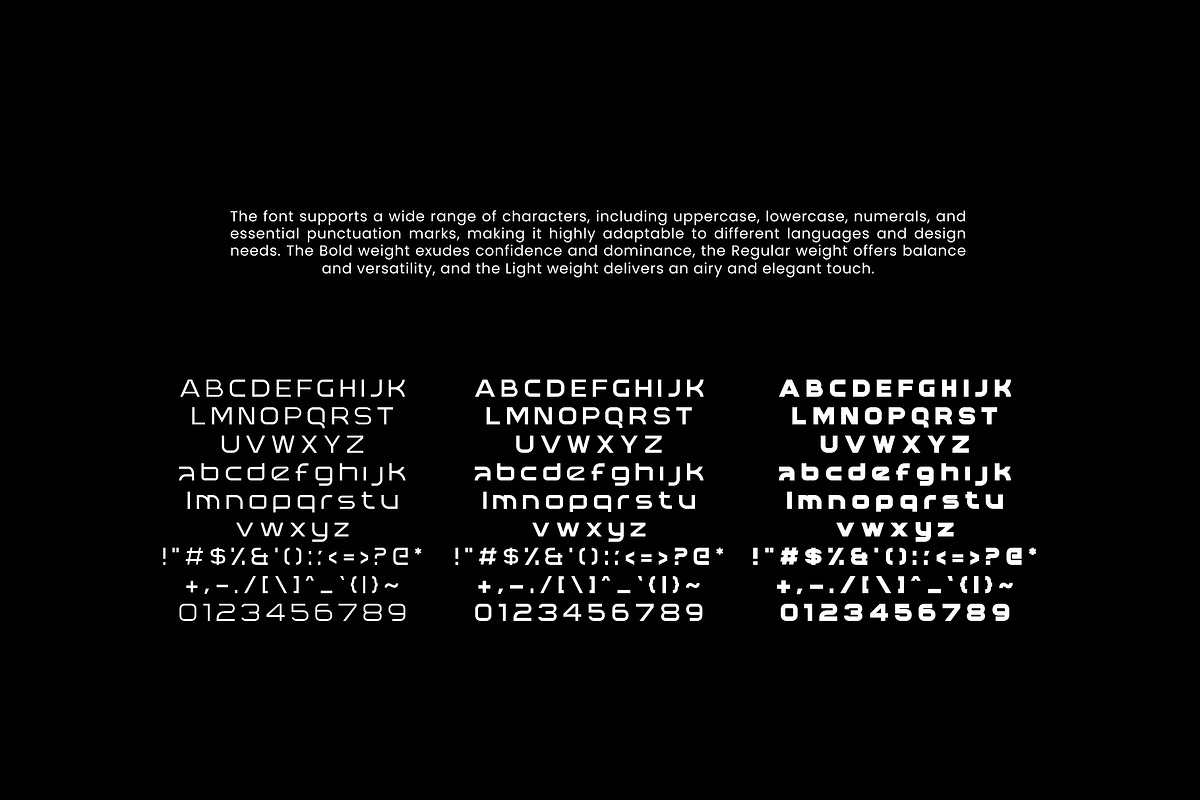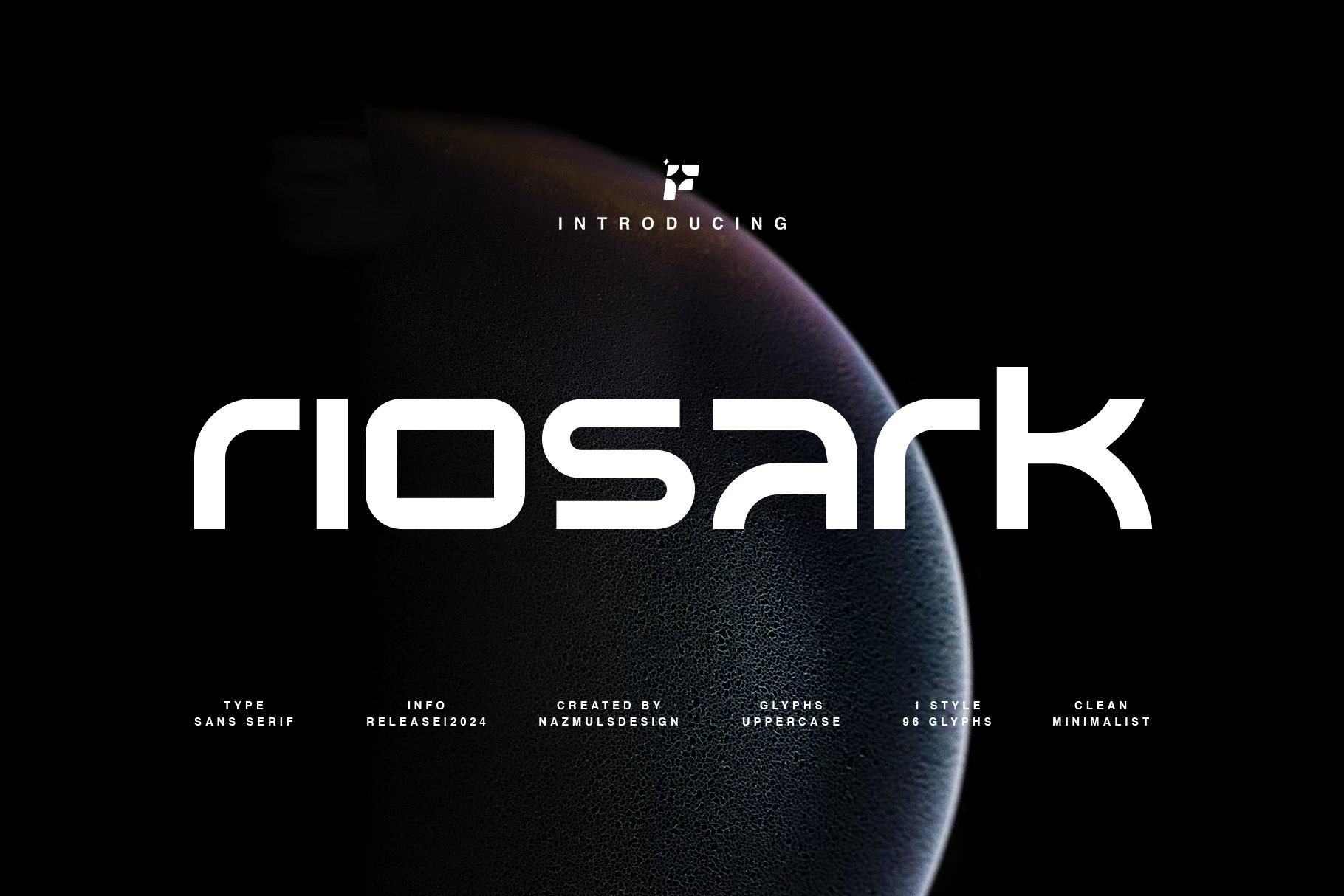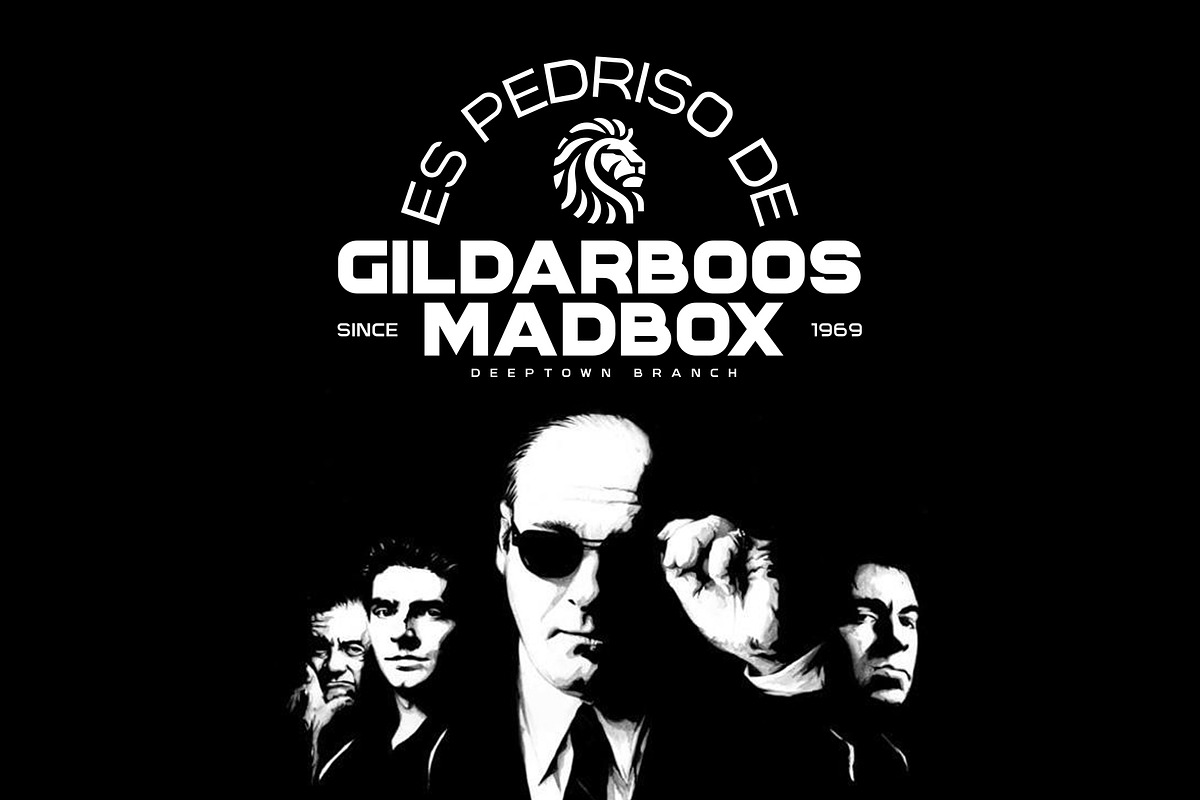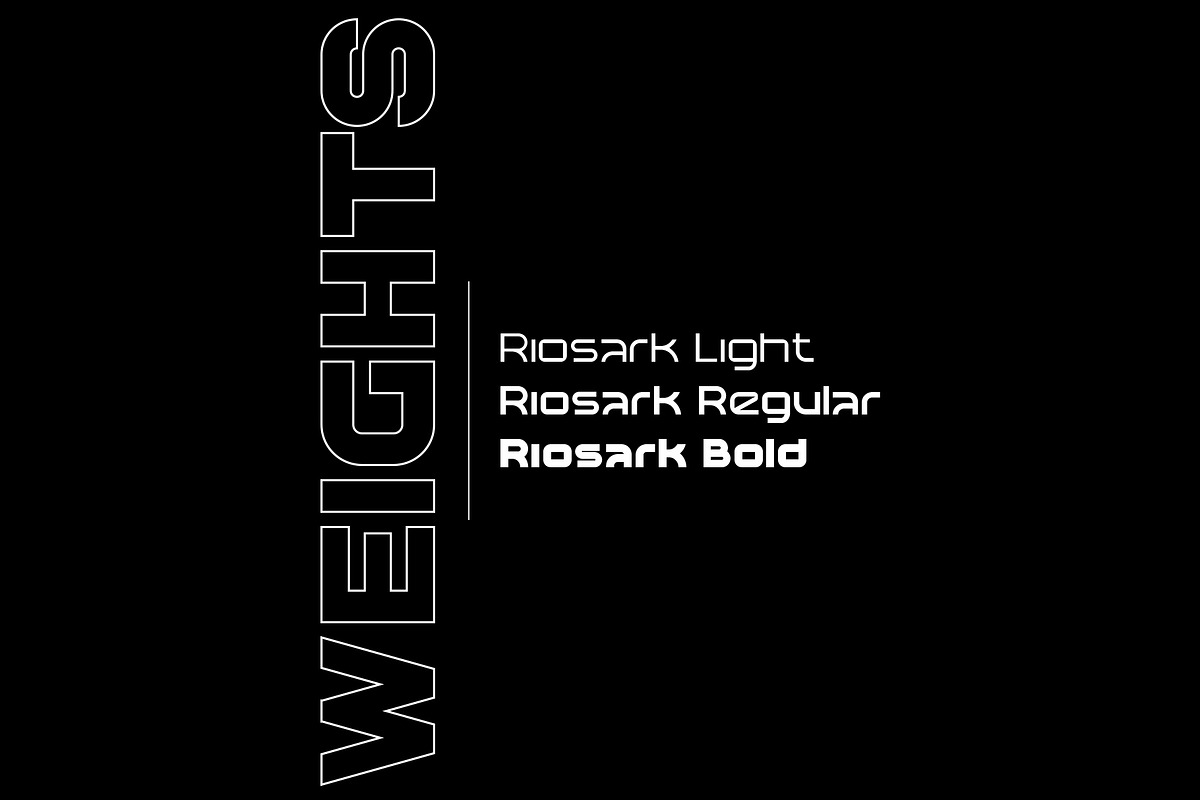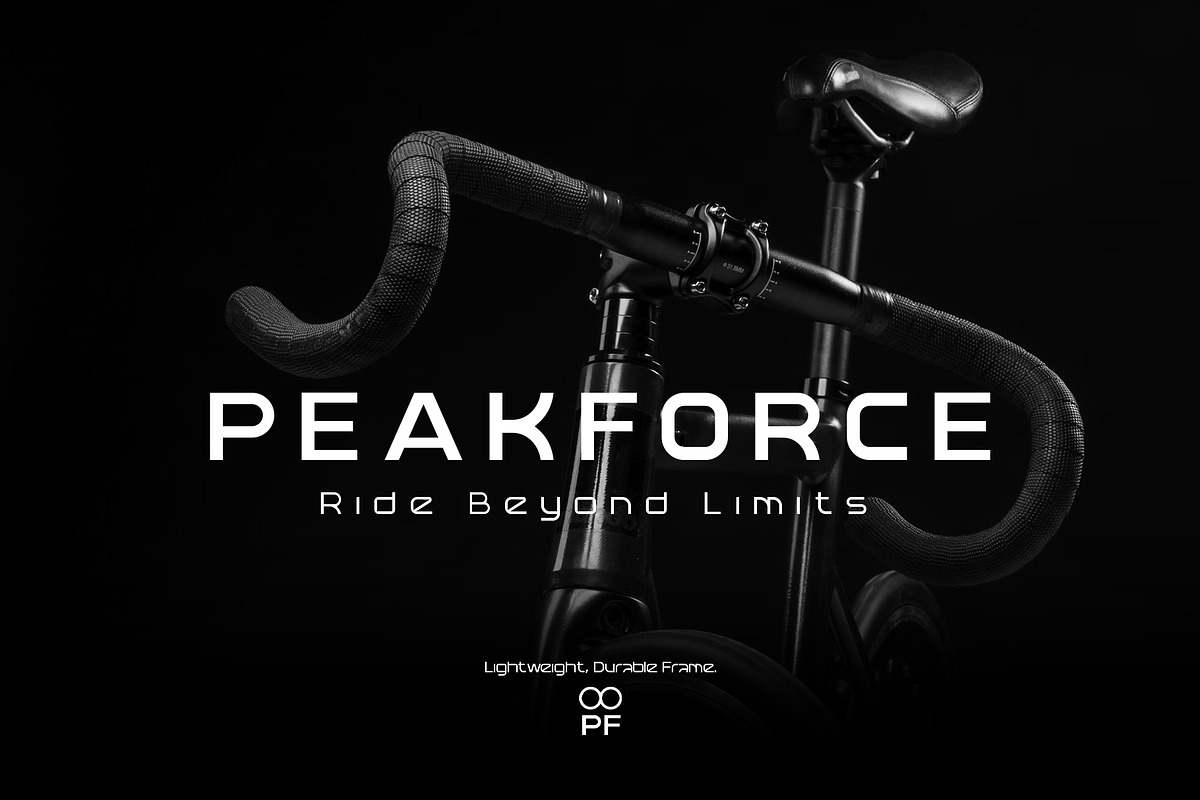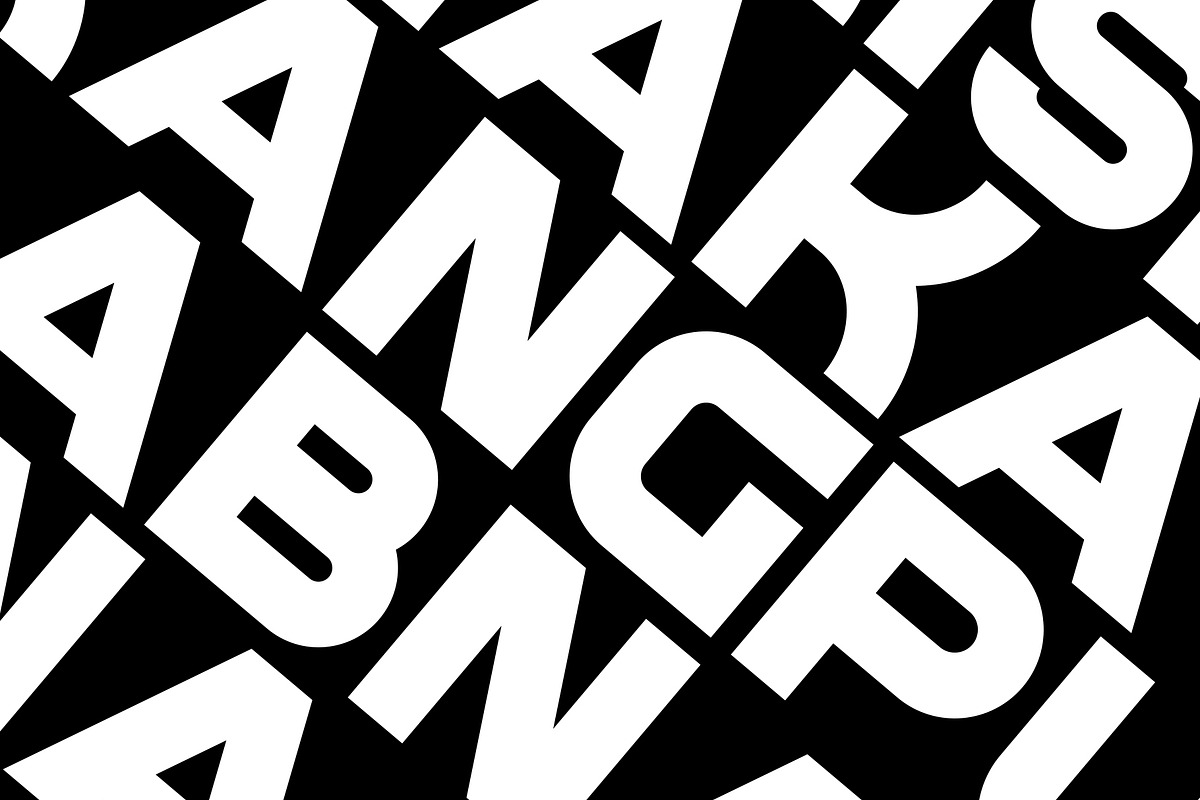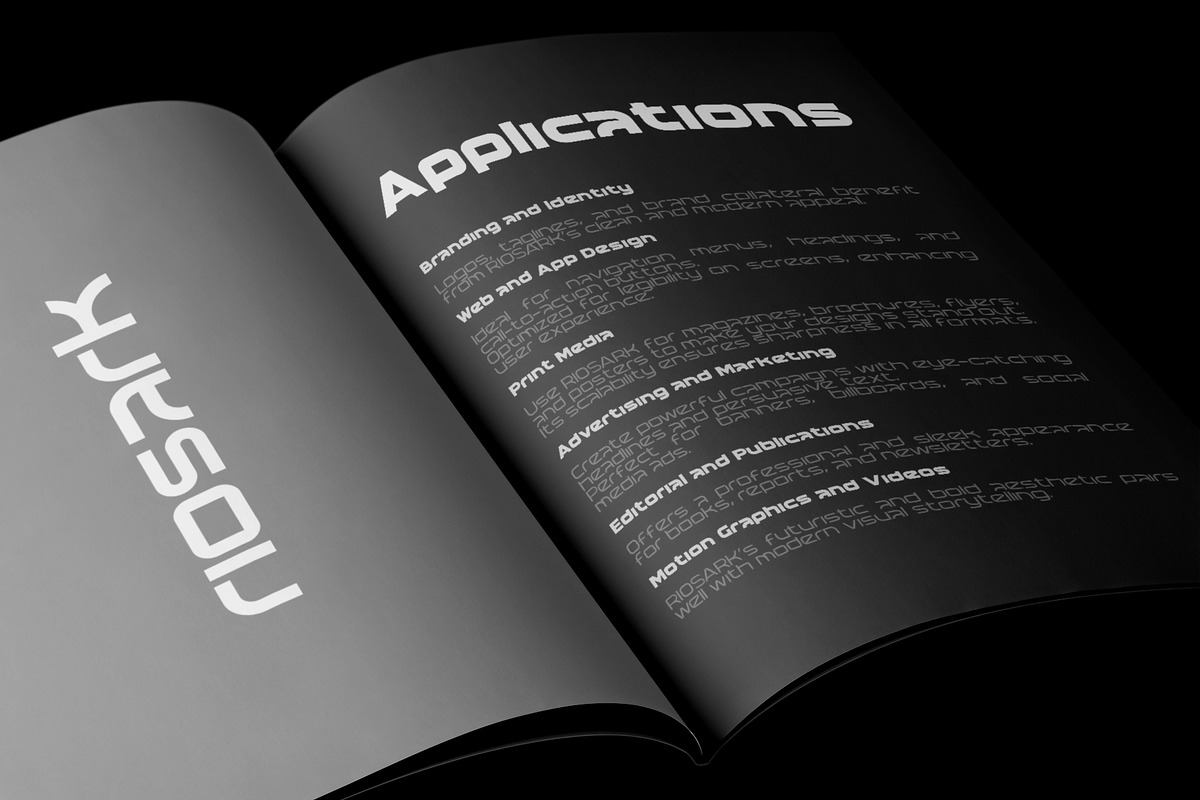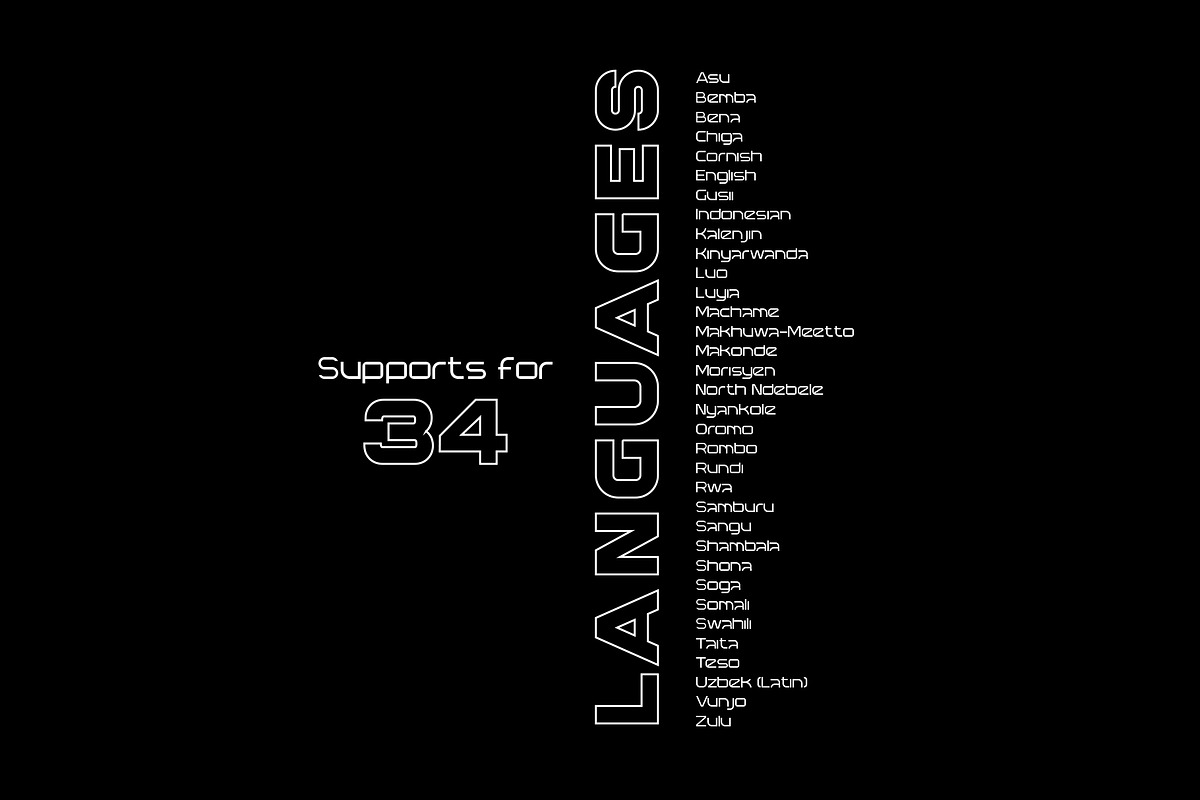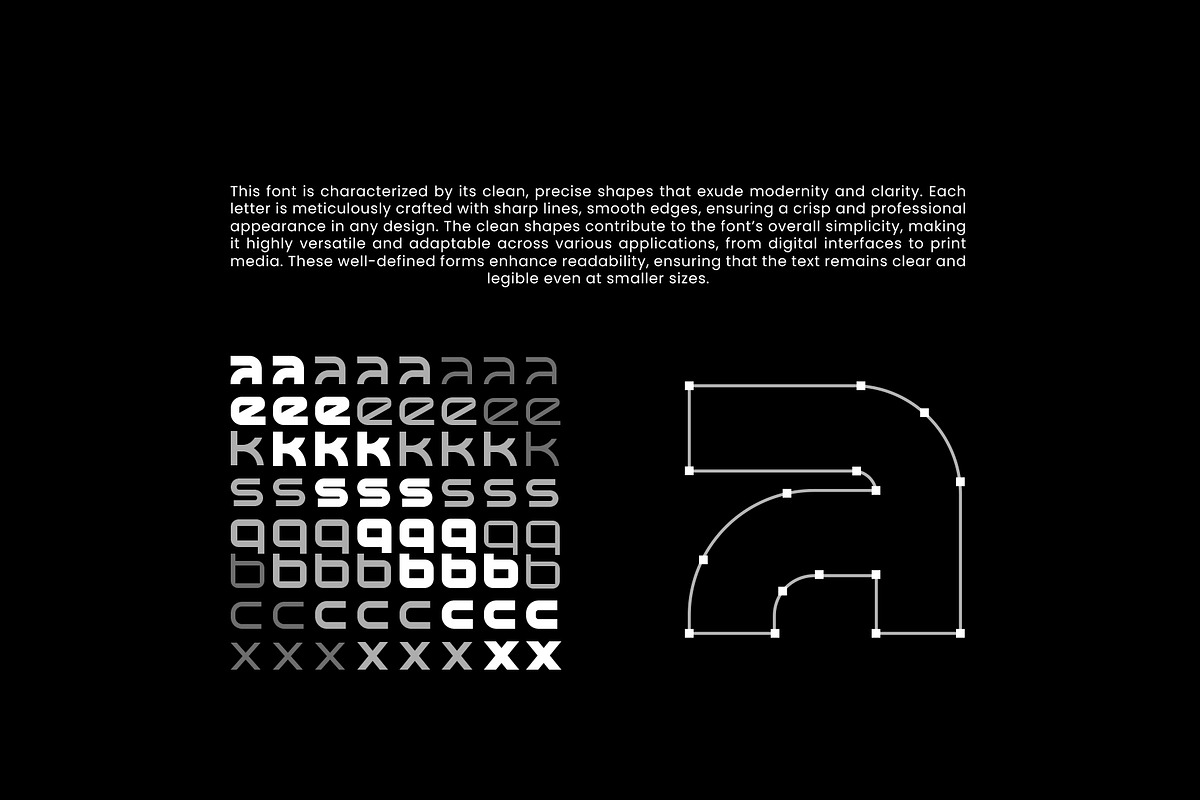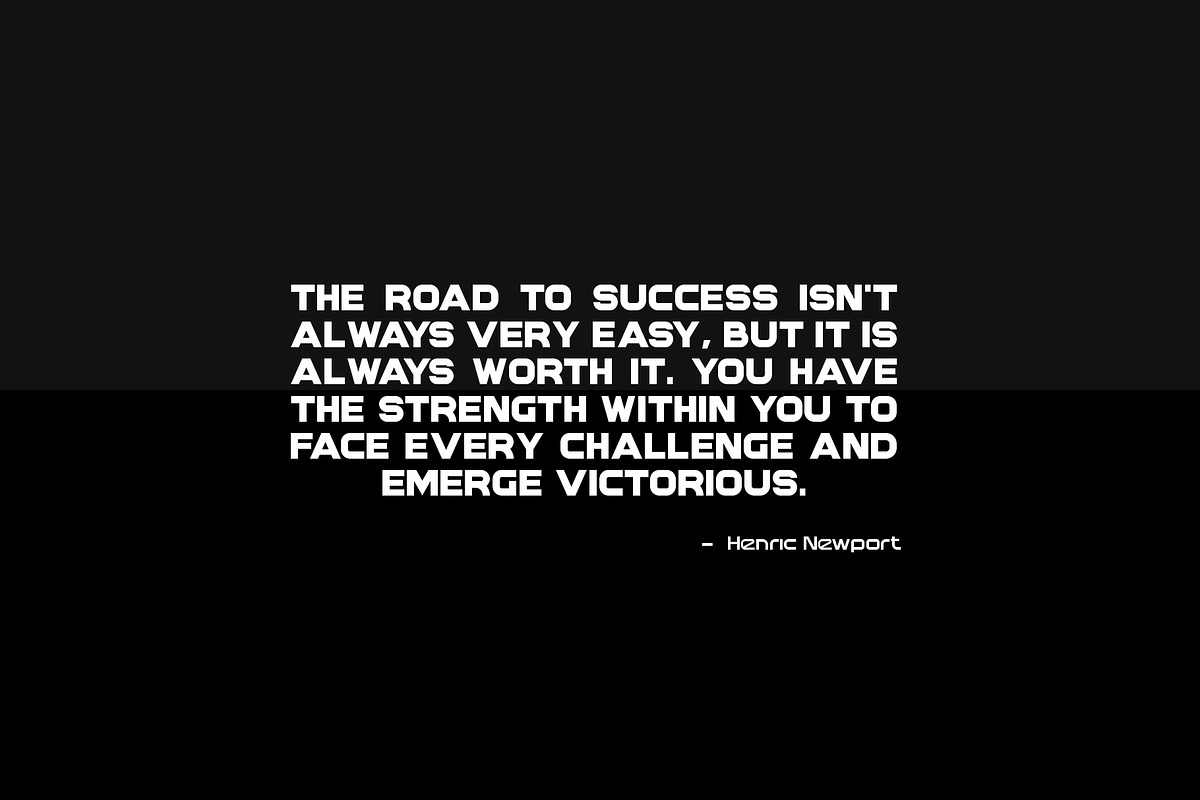
Riosark | Sans Serif Typeface
RIOSARK is a modern and futuristic sans-serif typeface designed with precision and versatility in mind. Its clean, strong, and minimalistic design makes it ideal for contemporary projects that demand attention and clarity. With three distinct weights—Bold, Regular, and Light—RIOSARK adapts seamlessly to diverse design needs, from bold headlines to subtle text elements.
This typeface embodies a futuristic aesthetic, perfect for branding, technology, UI/UX design, posters, and any creative endeavor requiring a sleek and professional touch. Its refined curves and balanced structure create a harmonious visual flow, making it both elegant and highly legible.